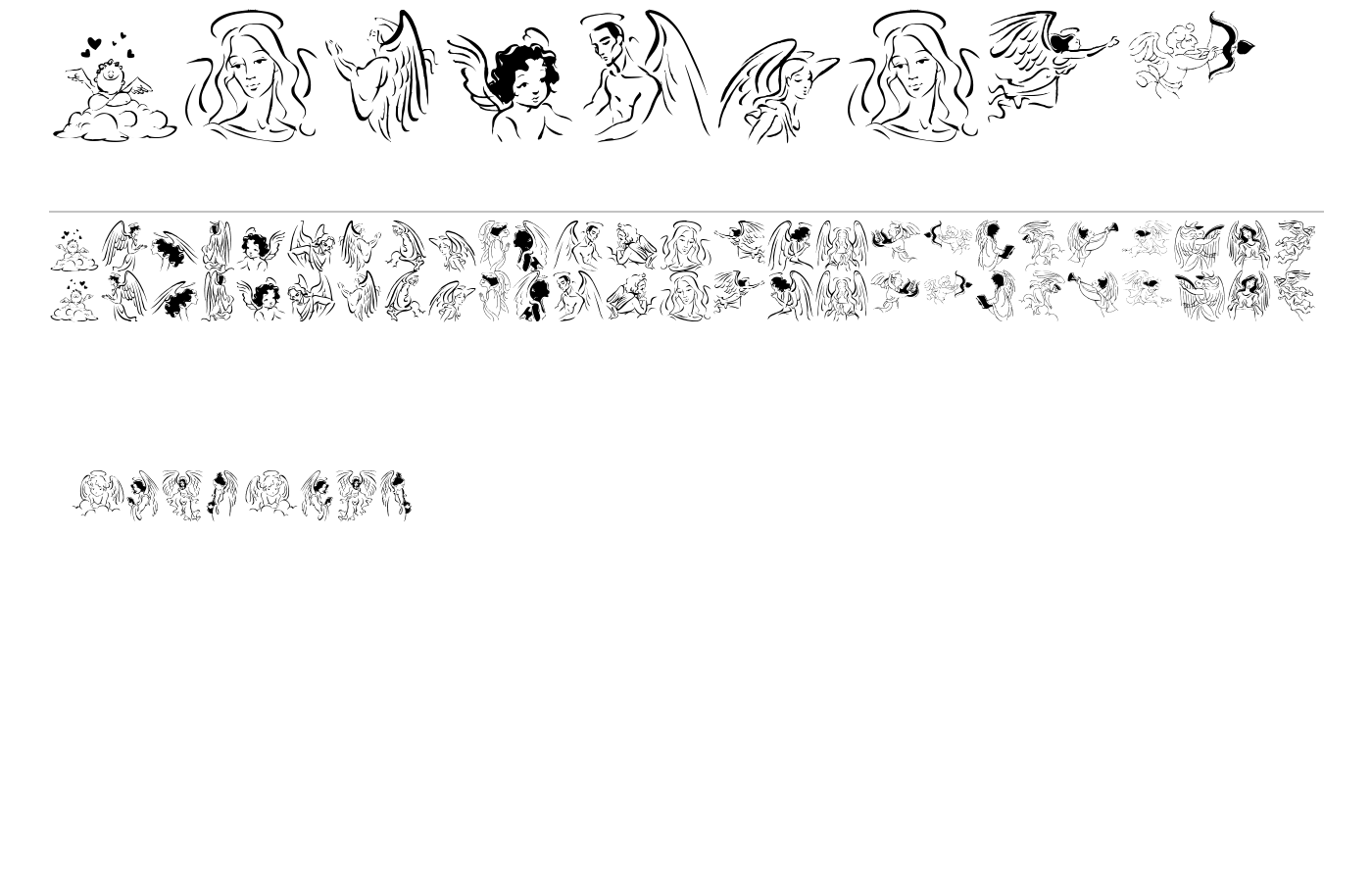
Angelinos Font is a decorative, illustration-based typeface featuring a charming collection of delicate angelic figures and motifs rendered with fine, elegant lines. This font exudes a whimsical and graceful personality, making it perfect for adding a heavenly or romantic touch to designs such as event invitations, greeting cards, or themed packaging where a light, artistic feel is desired. Its intricate and detailed style works best in larger display sizes where the delicate artwork can be appreciated fully.
Angelinos Font
About Angelinos Font